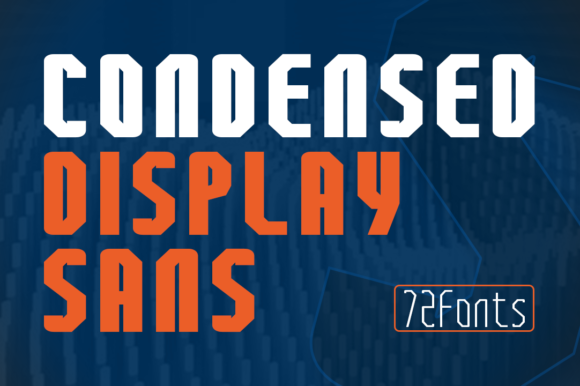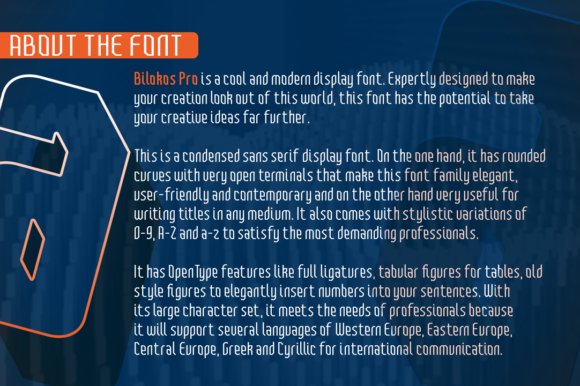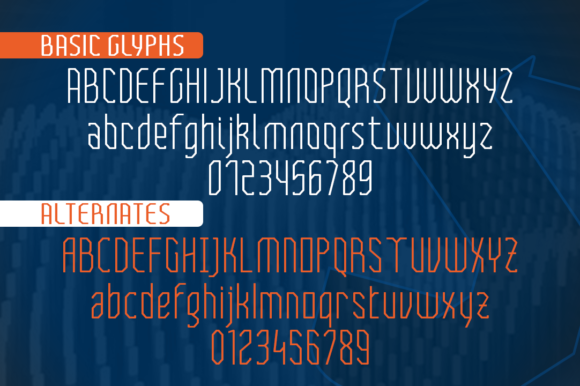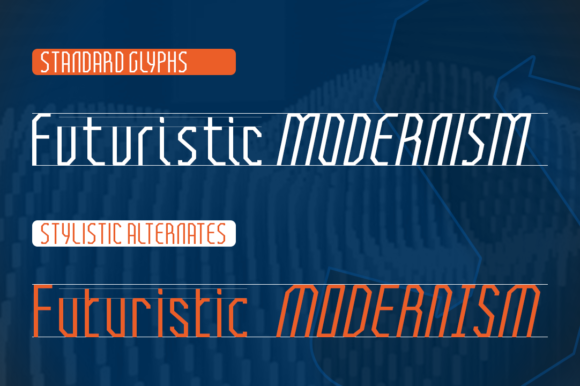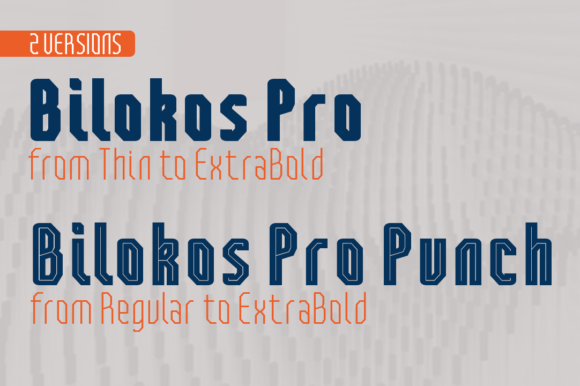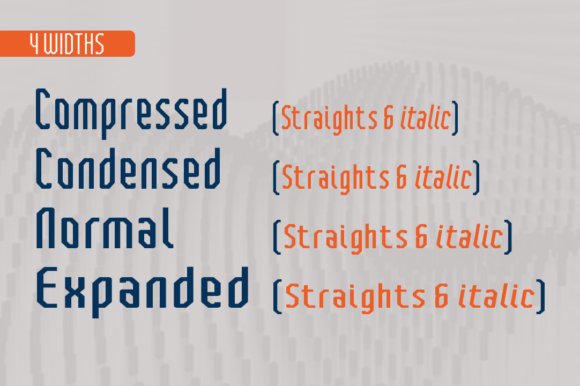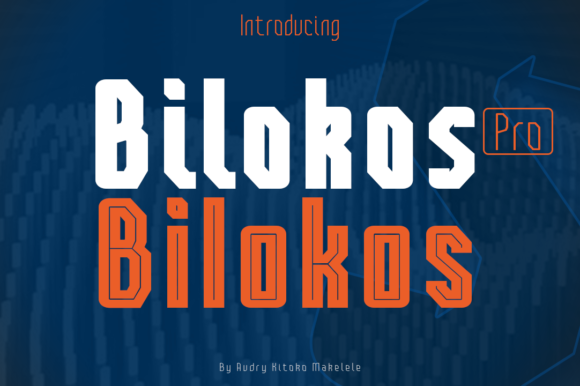
The Ultimate Guide to Bilokos Pro Condensed Font
I’ll never forget the time I was working on a futuristic tech project, and my client asked me to create a bold, eye-catching logo. I scoured the internet for the perfect font, but nothing seemed quite right. That was until I stumbled upon Bilokos Pro Condensed. This cool, techno, and bold display font has been a game-changer for my designs ever since. In this article, I’ll share my honest review, a practical guide on how to use it, and some helpful tips and tricks.
• ✨ Unique and Futuristic Design: Bilokos Pro Condensed has a one-of-a-kind look that’s perfect for tech, sci-fi, and futuristic designs.
• ✅ Highly Versatile: This font can be used for a wide range of projects, from logos and titles to posters and social media graphics.
• 💥 Attention-Grabbing: The bold and condensed design makes it perfect for grabbing attention and making your creations stand out.
While Bilokos Pro Condensed is an amazing font, there are a few things to keep in mind:
• 🤔 Limited Legibility: Due to its condensed and bold design, it may not be the best choice for long paragraphs or body text.
• ⚠️ Glyph Limitations: Some users have reported limited glyph options, which may restrict its use in certain projects.
Exploring OpenType Features
Bilokos Pro Condensed comes with a range of OpenType features that can enhance your designs. Here are a few tips on how to use them:
• Stylistic Alternates: Switch between different font styles to add variety to your text.
• Glyphs: Access additional characters and symbols to add more personality to your designs.
Bilokos Pro Condensed was designed with the futuristic and tech-savvy designer in mind. The font’s creator drew inspiration from sci-fi movies, video games, and cutting-edge technology. The result is a font that’s both bold and futuristic, perfect for making your designs stand out.
What type of projects is Bilokos Pro Condensed best suited for? Bilokos Pro Condensed is perfect for tech, sci-fi, and futuristic projects, such as logos, titles, posters, and social media graphics.
Is Bilokos Pro Condensed suitable for body text? Due to its condensed and bold design, Bilokos Pro Condensed may not be the best choice for long paragraphs or body text.